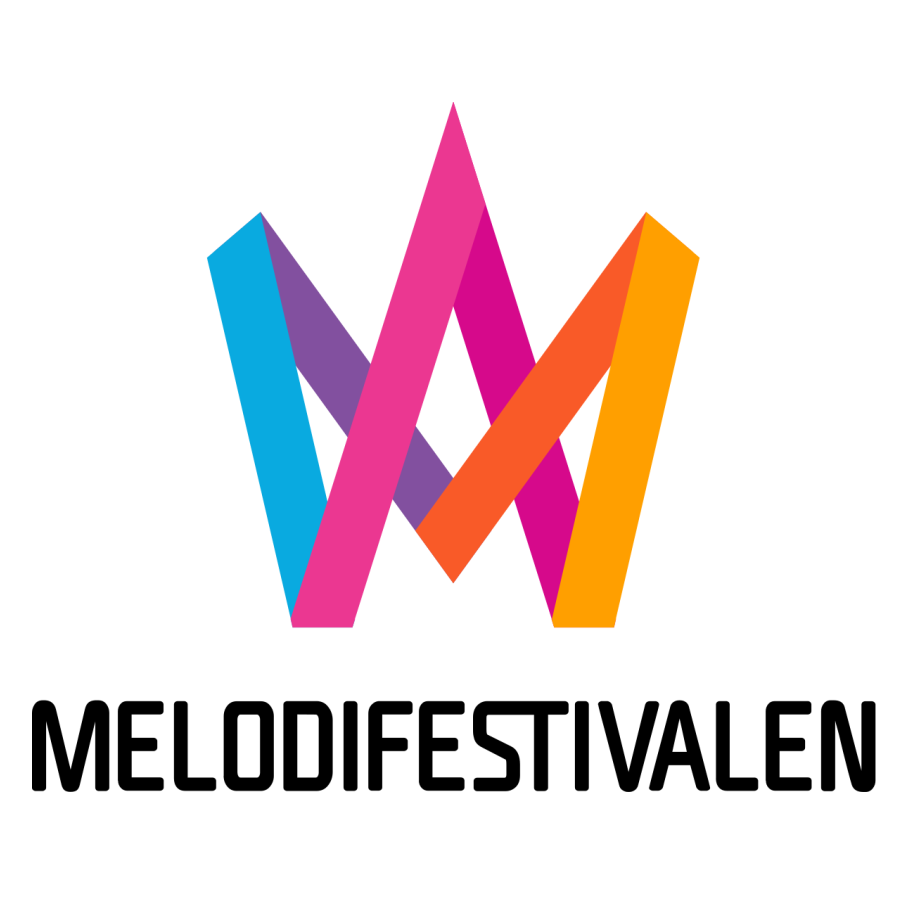
Melodifestivalen Font
The Melodifestivalen logo employs the use of UNicod Sans Condensed Medium, a square sans serif font family created by Olivier Gourvat for Mostardesign Studio in 2010. You may find more details about the font family here